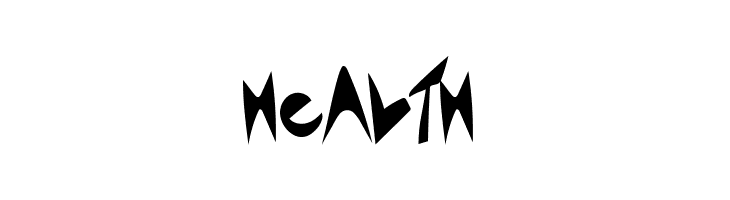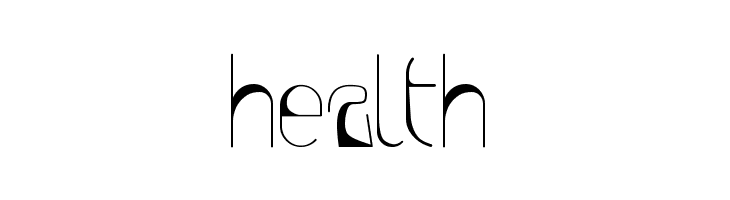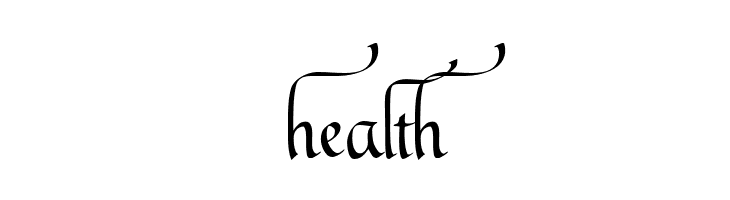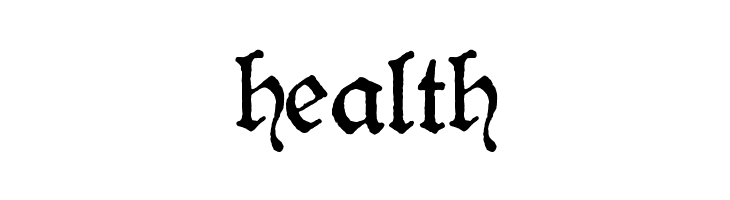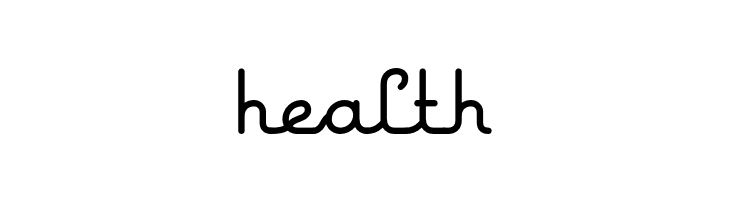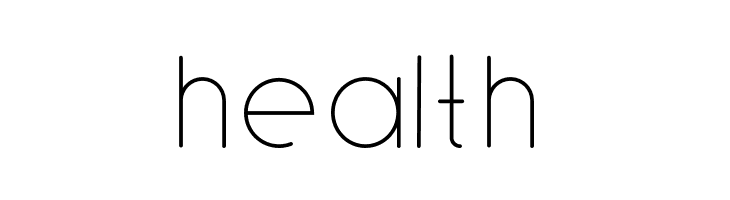
A bold, angular font with sharp, geometric lines and a dynamic style.
A dynamic font with a mix of bold and thin strokes, offering a creative and artistic look.
A playful, bold font with rounded edges and a hand-drawn feel.
An elegant, calligraphic font with high contrast and ornate details.
A Gothic-style font with ornate, angular characters and decorative flourishes.
A playful, modern font with geometric and cursive elements.
A bold, dramatic serif font with sharp serifs and unique flourishes.
A clean, geometric font with a modern and open design.
A bold, geometric font with sharp angles and a futuristic design.